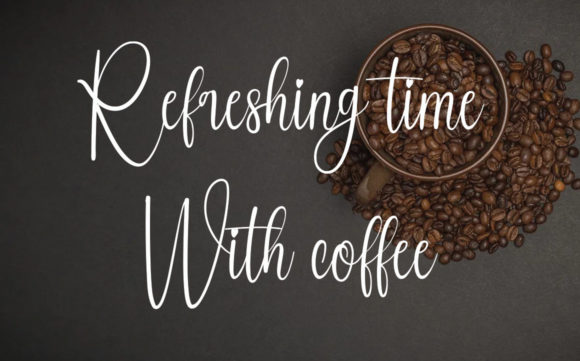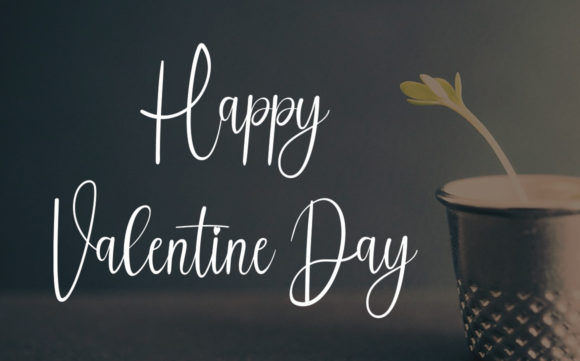
Missyou Font
db-ku.com - Script & Handwritten -- Missyou is a sweet and romantic handwritten font featuring a delicate flow. Use it for wall displays, wedding invitations, social media post logos, and any project that requires impressive typography.